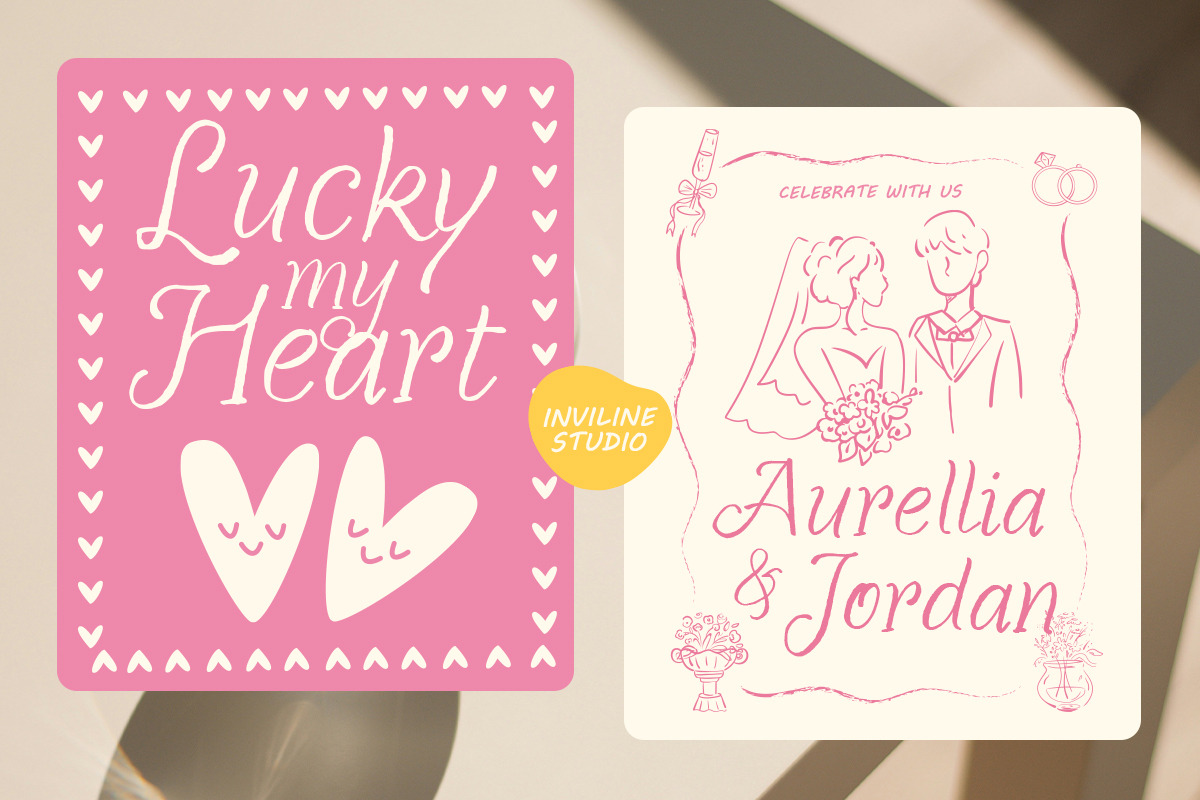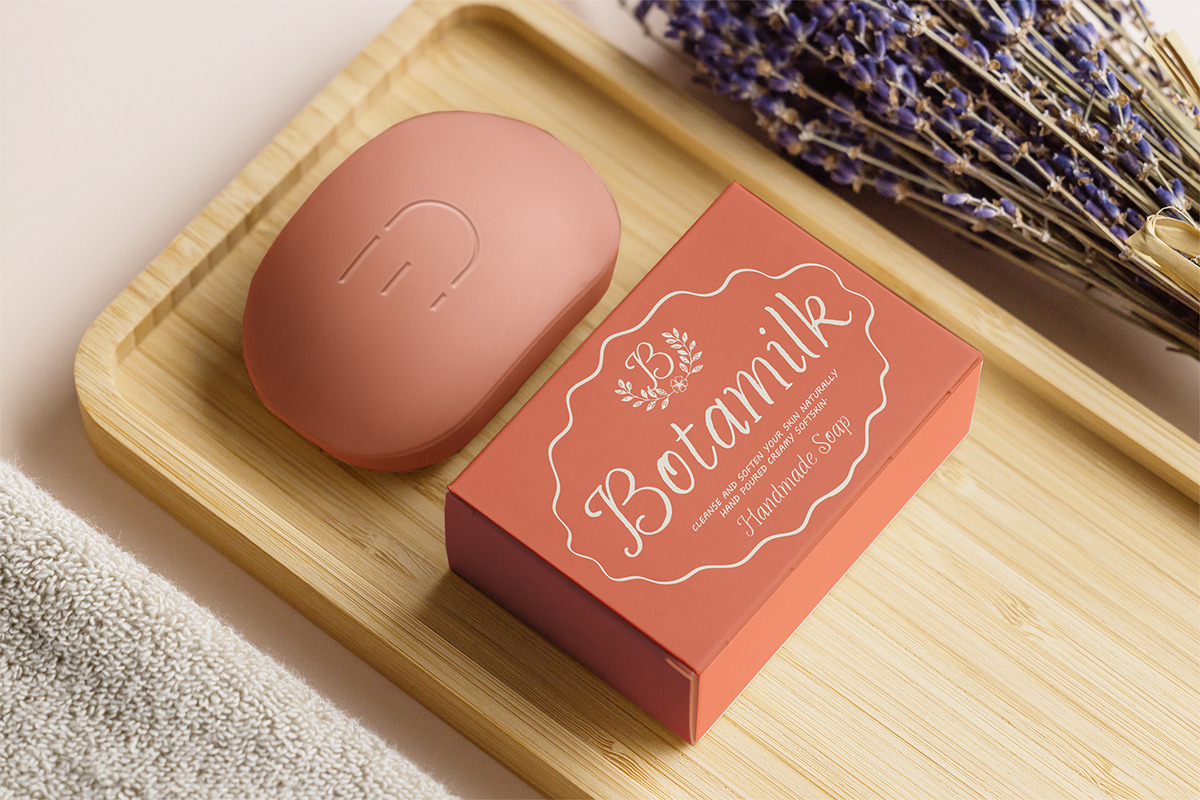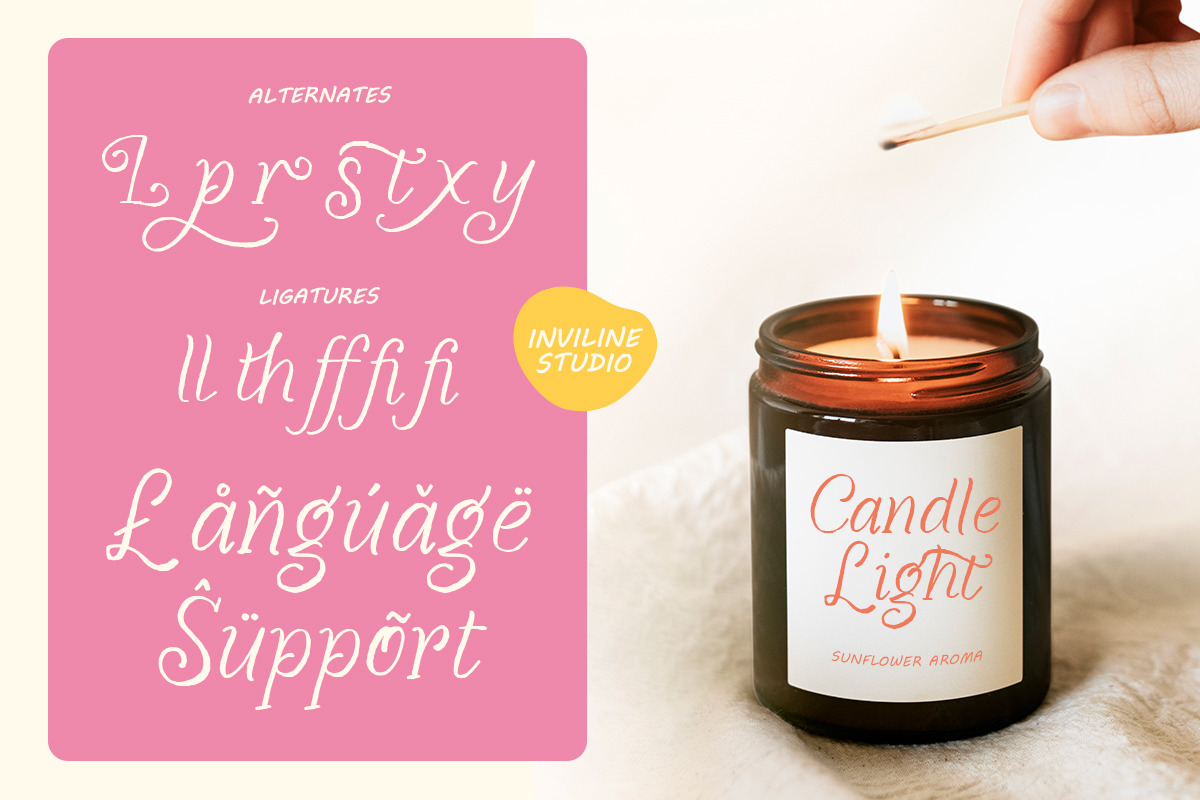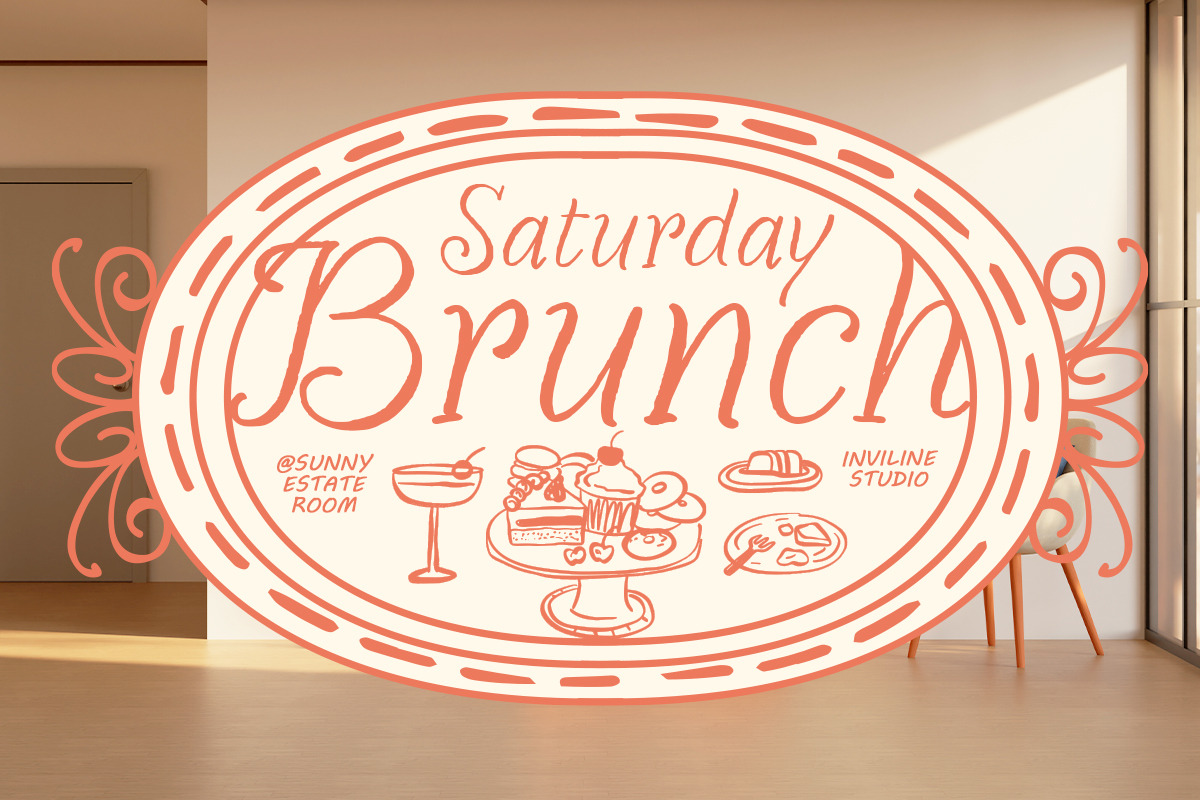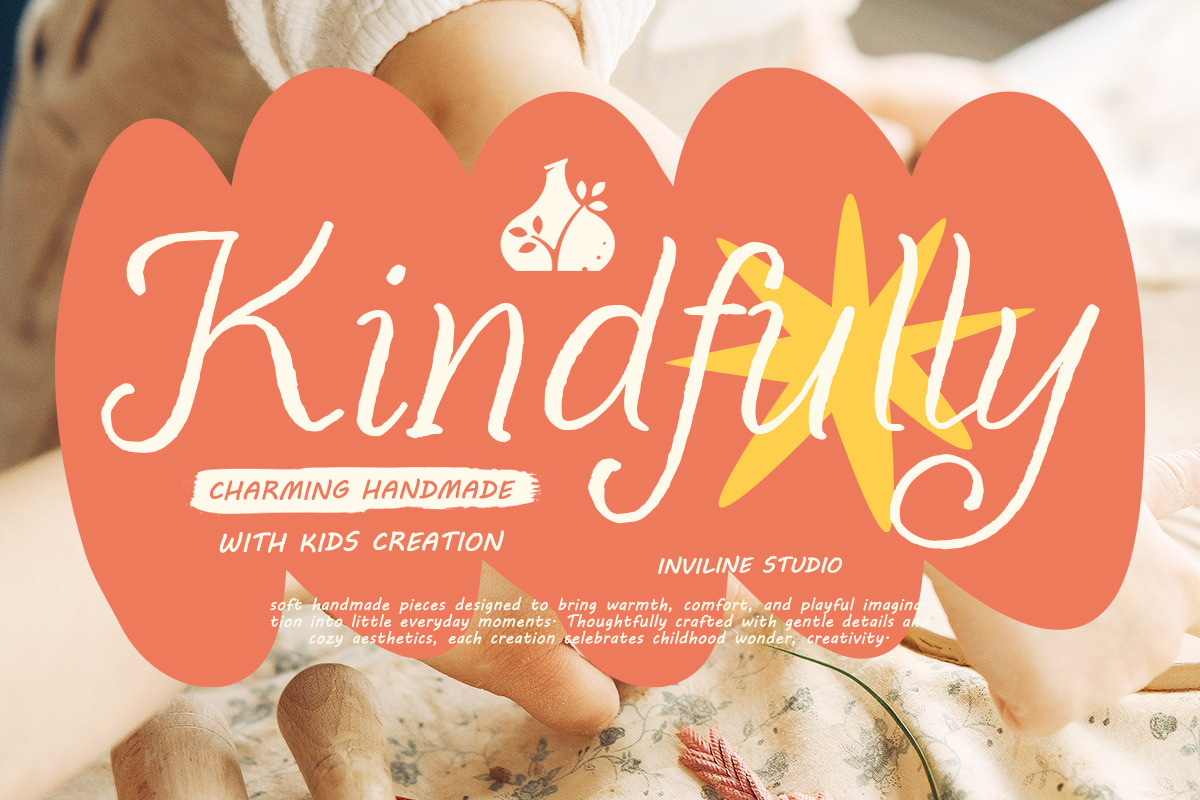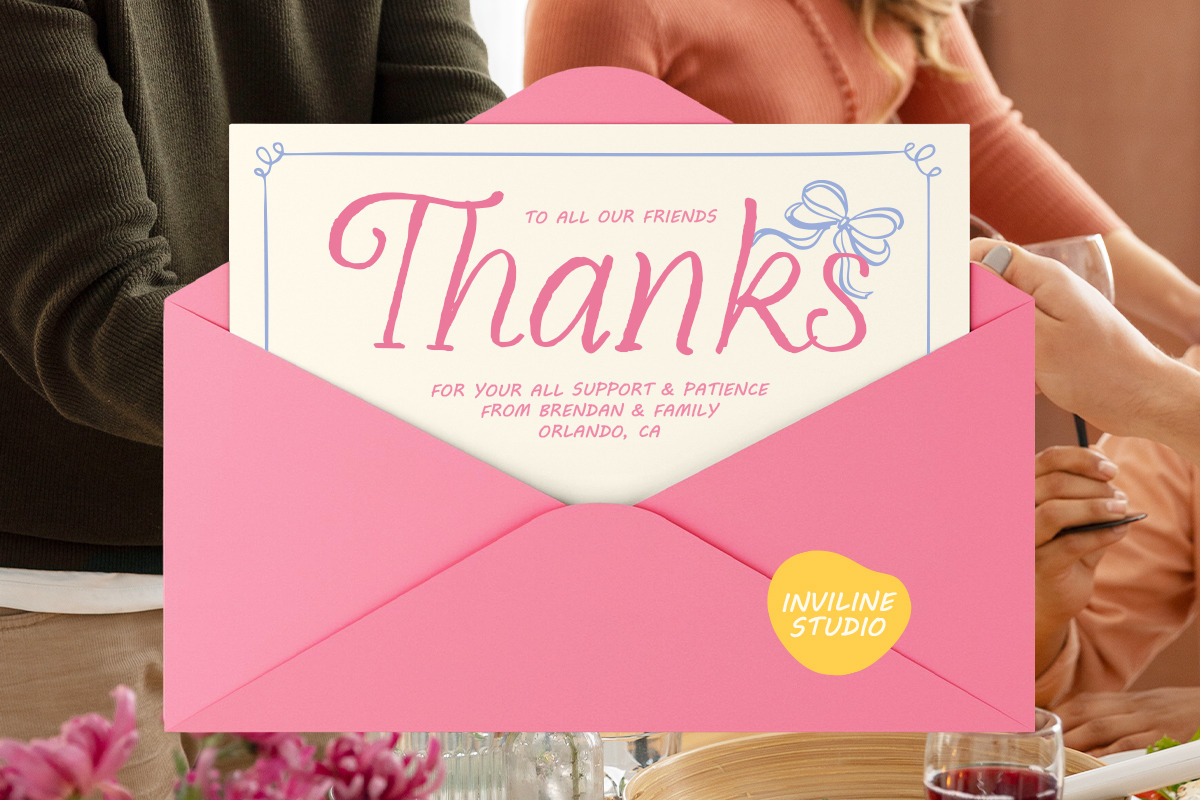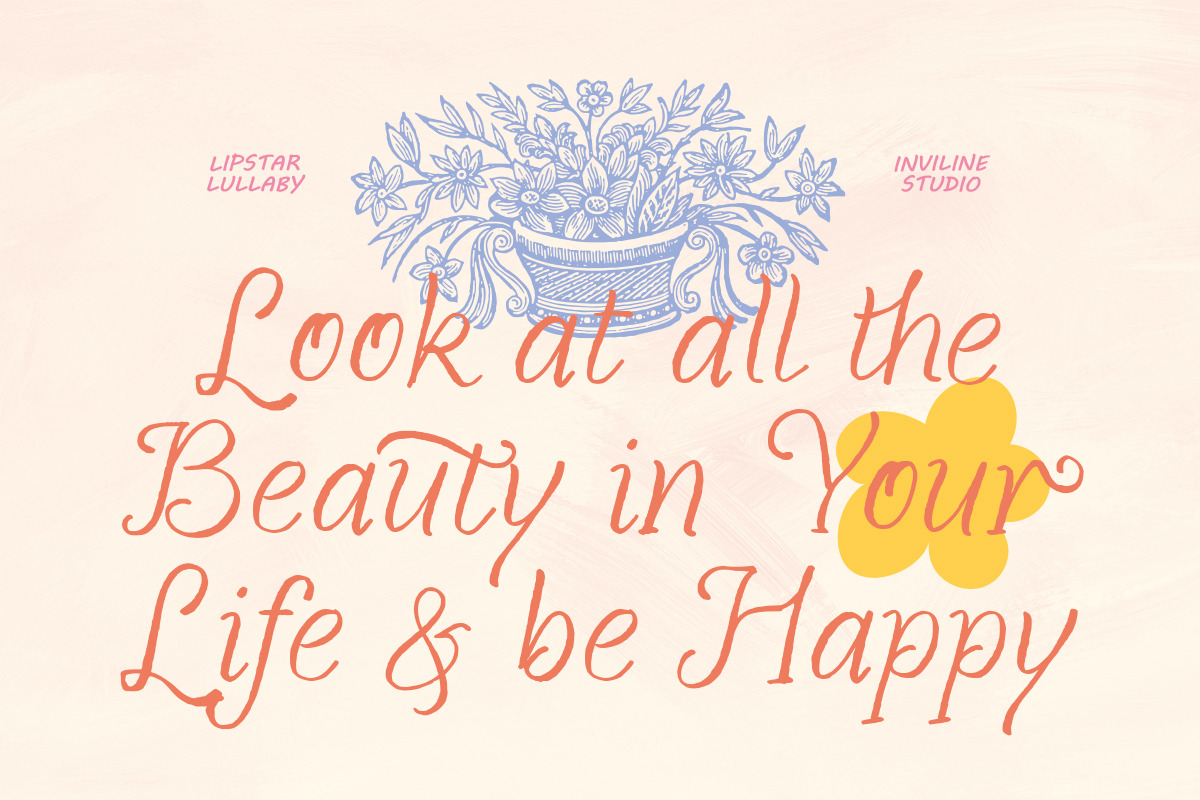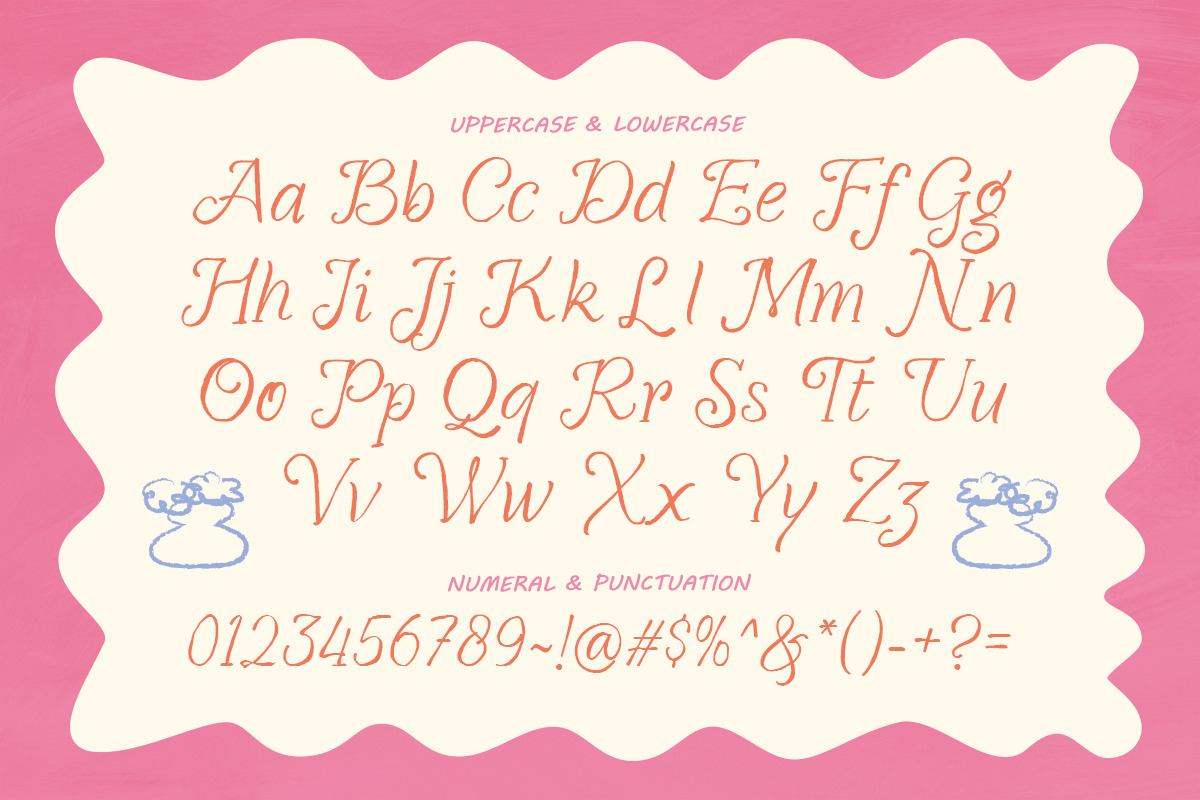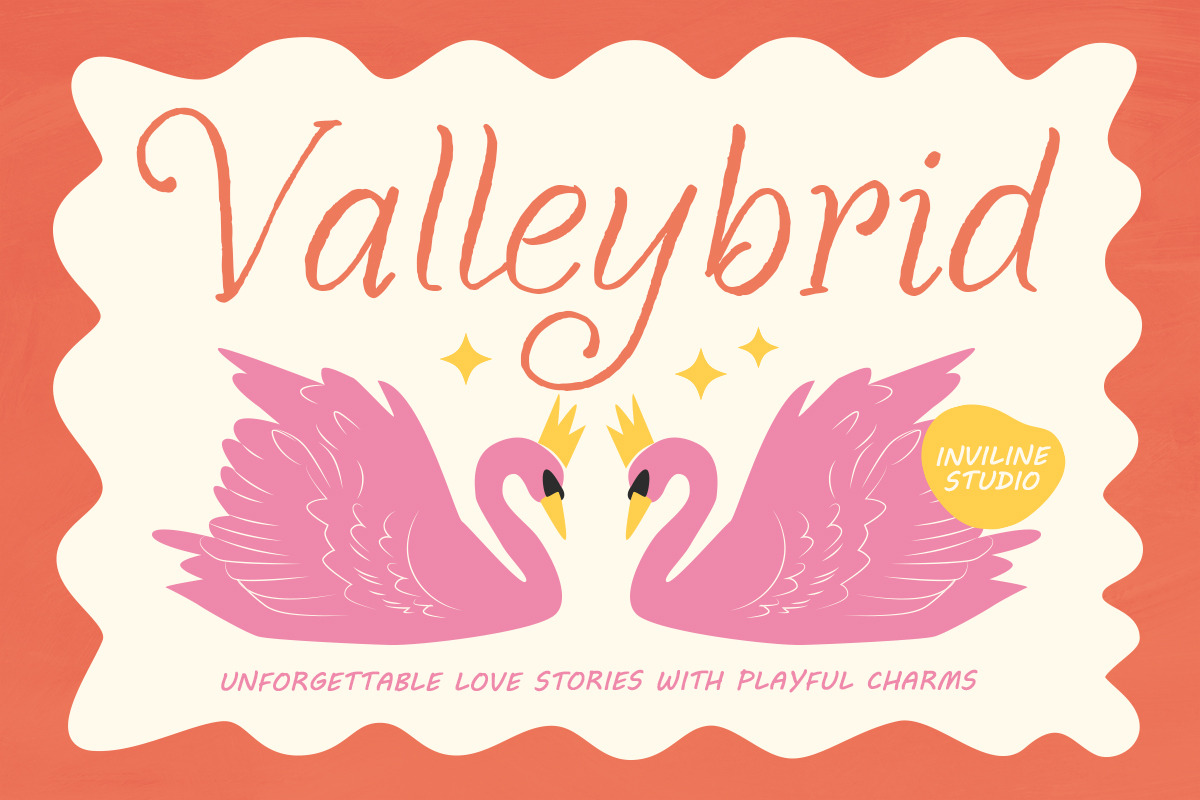
Lipstar Lullaby - Casual Script
A charming, casual handwritten font with playful warmth. Perfect for kids' designs, wedding invitations, and handmade product packaging.
Bring your designs to life with Lipstar Lullaby, a casual handwritten font created by Inviline Studio. Thoughtfully crafted with gentle details, this typeface is designed to bring warmth, comfort, and playful imagination into everyday moments. Whether you're celebrating love stories or creating kids' apparel, Lipstar Lullaby delivers a sincere, human touch.
250+ Glyphs: A robust character set for versatile designing.
Playful Alternates & Ligatures: Smart OpenType features that swap standard letters for custom variations, ensuring your text looks naturally handwritten rather than strictly typed.
Cozy Aesthetic: Smooth, highly legible strokes that fit the 2026 "Cute and Cozy" trend perfectly.
Ideal For / Use Cases
Kids & Nursery: Children's books, apparel, and playful educational materials.
Handmade & Artisanal: Creamy skincare packaging, handmade soaps, and sunflower aroma candles.
Events & Lifestyle: Charming wedding invitations, Saturday brunch menus, and positive social media quotes.